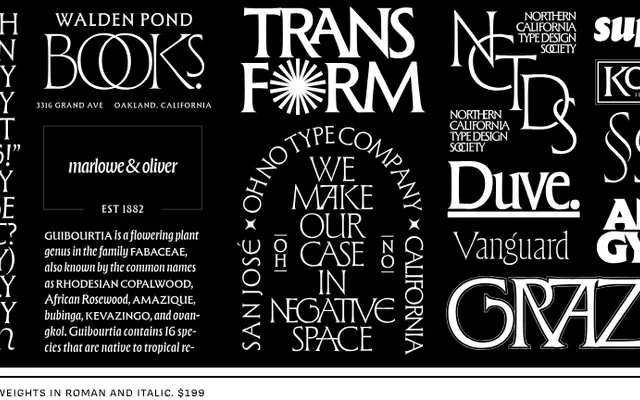
Forevs
OH no Type · James Edmondson · 2022
Forevs specimen from OH no Type
A glyphic serif by James Edmondson begun in a 90-minute garage session in 2022, drawing from Art Nouveau, incised and classical lettering traditions across seven weights.
James Edmondson sketched the original uppercase in a single 90-minute sitting in Oakland in June 2022, and the family has since grown to 14 styles spanning Thin to Super with matching italics and two variable fonts. The design sits somewhere between glyphic, incised and classical traditions, with an extensive set of alternates referencing Art Nouveau, Lombardic forms and historic models including Marlowe-style R variants and high-waisted Fs. It has appeared in branding, editorial and poster work, including a school identity by Wonderhood Studios and a Hinge campaign.
The foundry describes it as potentially glyphic or incised with classical references; the design draws from Art Nouveau letterforms and historic sources, placing it in a glyphic or lapidary serif tradition with distinctive historical personality.